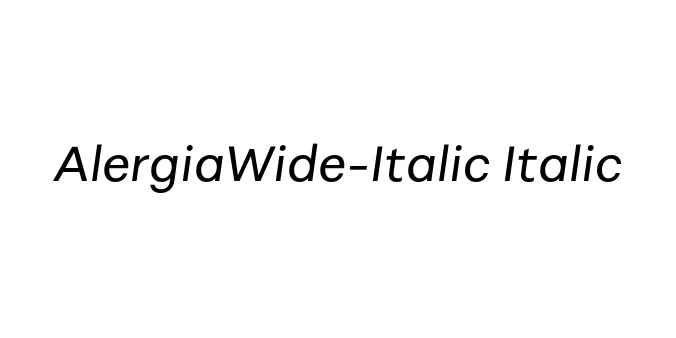
AlergiaWide-Italic Italic
Designed by Mateusz Machalski
Alergia Wide Italic is a distinguished member of the Alergia typeface family, crafted by the renowned designer Mateusz Machalski. This font is characterized by its geometric foundation blended with humanist elements, creating a look that is both contemporary and highly functional. The "Wide" variant specifically focuses on expanded horizontal proportions, providing a sense of stability and luxury that is ideal for high-impact visual communication.
The Italic style of the Alergia Wide sub-family brings a sophisticated slant to the design, injecting motion and emphasis into typographic hierarchies. Its clean construction ensures excellent legibility across various platforms, from premium print editorials to high-density digital screens. As a professional-grade font, it is frequently utilized by designers seeking a balance between a technical, architectural feel and a warm, approachable character.
AlergiaWide-Italic Italic Best Uses
Perfect for creating bold, memorable corporate identities and logo designs.
Excellent for pull quotes and dynamic headlines in fashion or architecture magazines.
Ideal for hero sections and spacious website headers that require a modern touch.
Well-suited for premium promotional materials and cinematic title sequences.